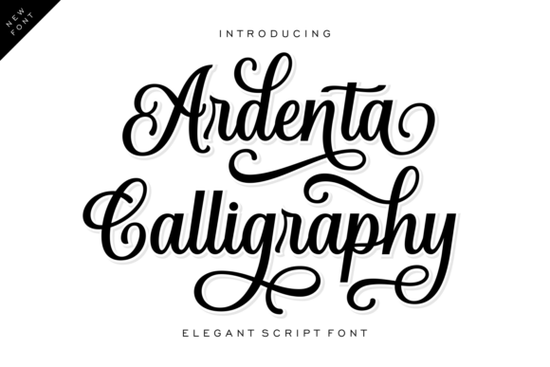
If you're looking for a script font that feels both elegant and approachable something that works as well on a hand-poured candle label as it does on an Instagram story headline you’ll likely find Ardenta Calligraphy Font fits naturally into your workflow. It’s not overly ornate, but it’s never plain. The strokes flow with quiet confidence: smooth entry and exit lines, gentle loops, and those distinctive elongated swashes that add rhythm without clutter. Designers and small business owners who work with wedding stationery, botanical brands, or indie beauty labels often tell us it’s one of the first fonts they reach for when they need warmth and intention in their typography.
What makes Ardenta Calligraphy different from other script fonts?
Most script fonts fall into two camps: ultra-formal (think traditional copperplate) or casual and bouncy (like many modern brush scripts). Ardenta Calligraphy sits comfortably in the middle. Its upright baseline gives it stability no awkward tilting or forced slant so it pairs cleanly with sans-serif companions like Montserrat or Inter. And unlike some calligraphy fonts that rely heavily on contextual alternates to look “real,” Ardenta delivers consistent charm straight out of the box. You don’t need design expertise to get good results.
It also scales well. Whether you’re setting a 12pt caption on a product tag or blowing it up to 120pt for a boutique window decal, the stroke contrast and spacing hold up. That’s why print-on-demand sellers report fewer customer questions about readability and why crafters appreciate how easily it cuts on Cricut or Silhouette machines when used for vinyl lettering or iron-on transfers.
Where do people actually use this font?
Real-world usage tells the clearest story. Here are a few examples we’ve seen across Creative Fabrica projects:
- Wedding stationery: Custom invitation suites where clients want something romantic but not fussy especially for floral-focused or garden weddings.
- Cosmetic branding: Small-batch skincare and perfume labels that lean into natural ingredients and handmade appeal.
- Social media graphics: Instagram quote posts or Pinterest pins where legibility at thumbnail size matters just as much as style.
- Printable planners & journals: Cover pages or section headers that feel personal and intentional not generic or mass-produced.
It’s worth noting that while Ardenta has flourishes, it avoids the “overly decorative” trap. That means less risk of visual noise when printed on textured paper or embroidered onto linen napkins. If you’ve ever tried a script font only to find it dissolves into a blur at small sizes or loses impact on dark backgrounds, this one tends to behave more predictably.
How does it compare to similar fonts on Creative Fabrica?
Like Magic Writing, Ardenta uses natural-looking entry and exit strokes but Magic Writing leans slightly more playful and rounded, making it better for cheerful kids’ products or café branding. More Gelato Please is bolder and more condensed, ideal for food packaging or summer-themed designs where you need punch over poise. And if you prefer something with richer texture and a chalky, hand-drawn finish, Handmade Velvet offers that tactile softness though it trades some of Ardenta’s crisp clarity for warmth.
- Test it at multiple sizes especially 14–18pt for body text and 48–72pt for headlines to see how the swashes interact with surrounding elements.
- Pair it thoughtfully: Try it with clean, low-contrast sans-serifs (like Poppins or Lato) rather than other scripts or heavy display fonts.
- Look at the character set: Ardenta includes full Latin support, basic punctuation, and common ligatures but no multilingual glyphs beyond Western European languages.
If you already work with script fonts regularly, Ardenta won’t replace every option in your collection but it might become the one you open first when the brief calls for sincerity, not spectacle.